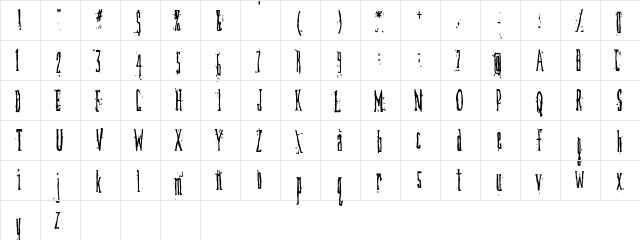
DirtyDeco Regular
Design Context for DirtyDeco Typeface
DirtyDeco is a composed and adaptable typeface that performs quietly and consistently across a wide range of design contexts.